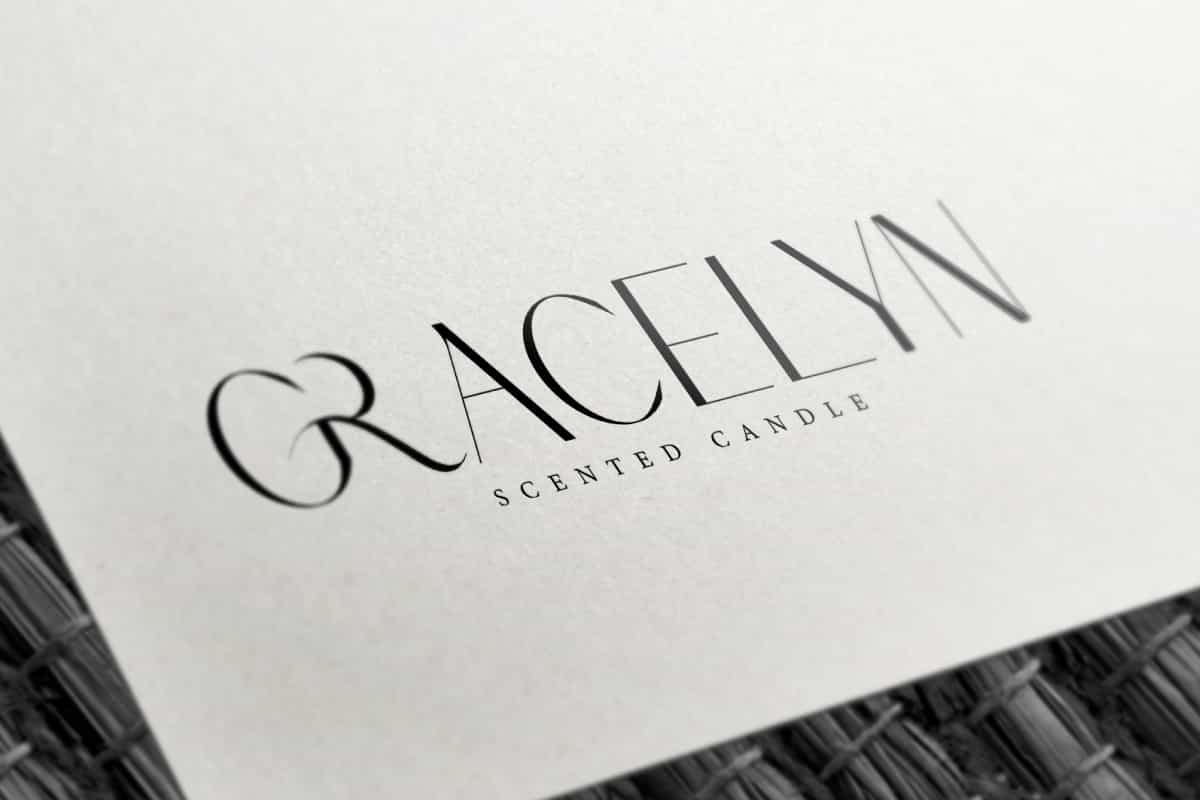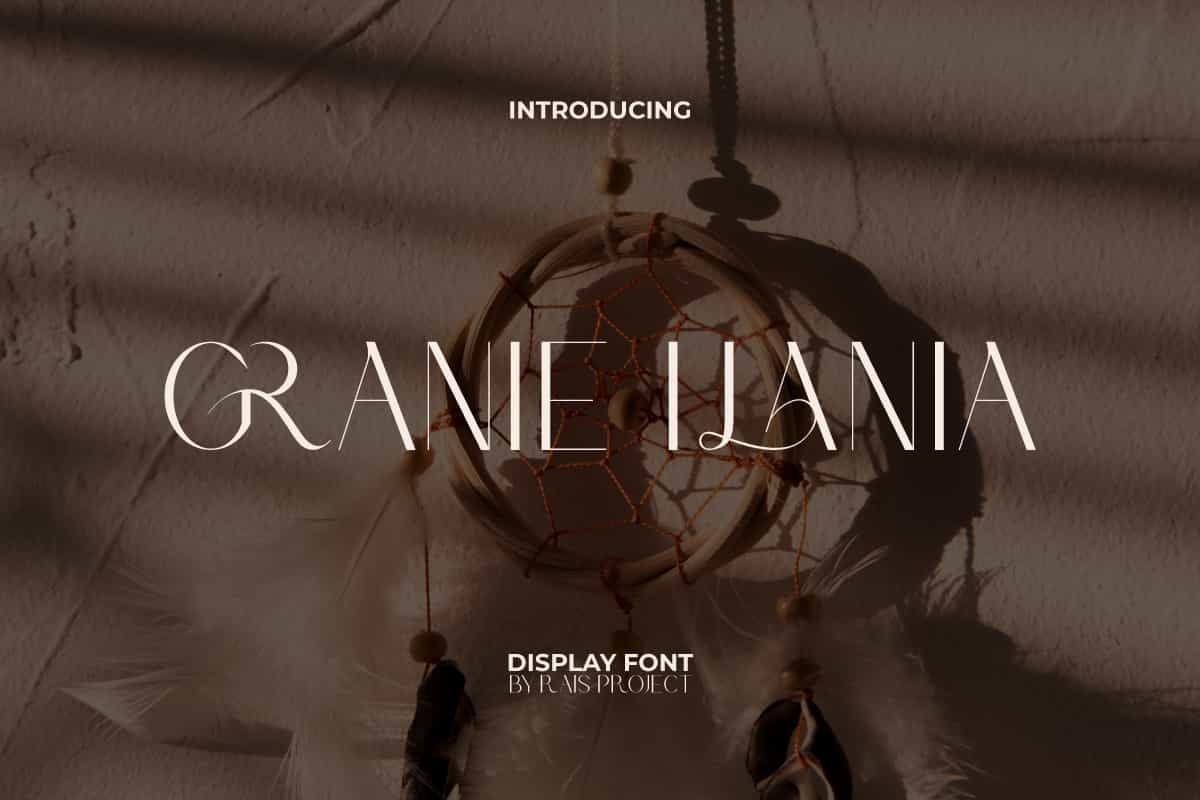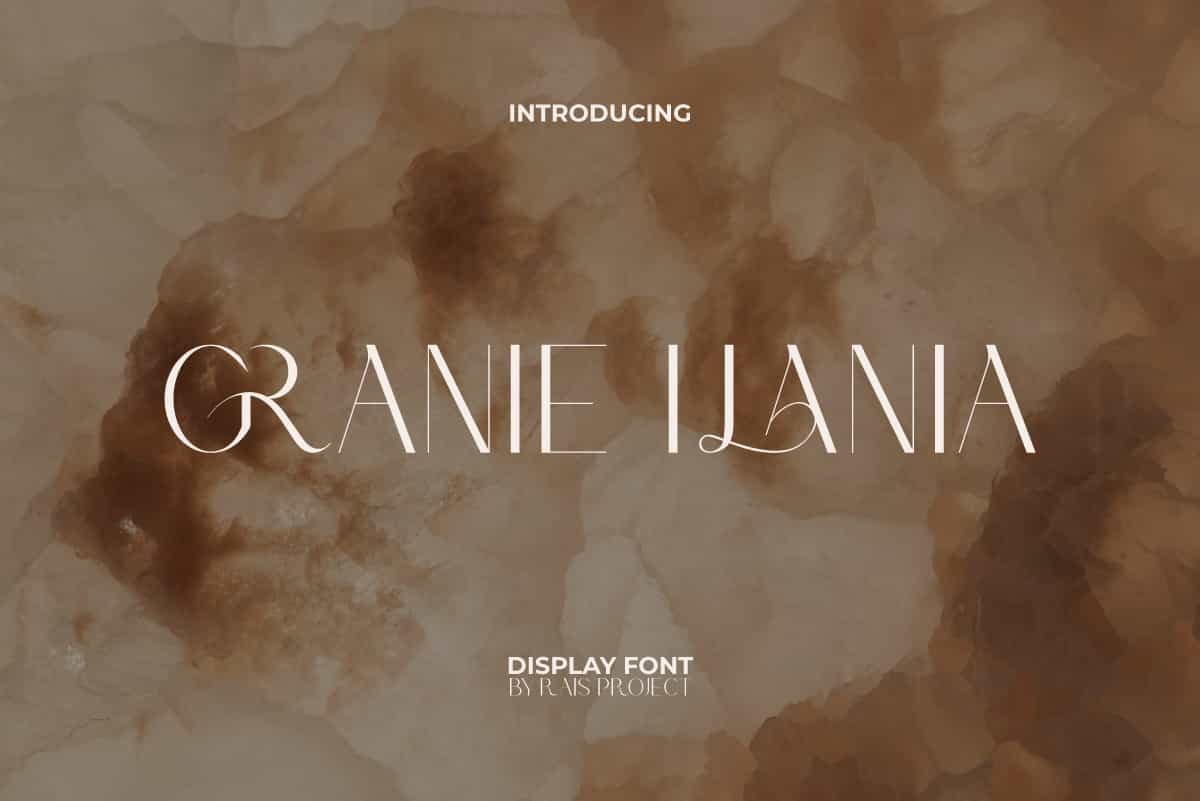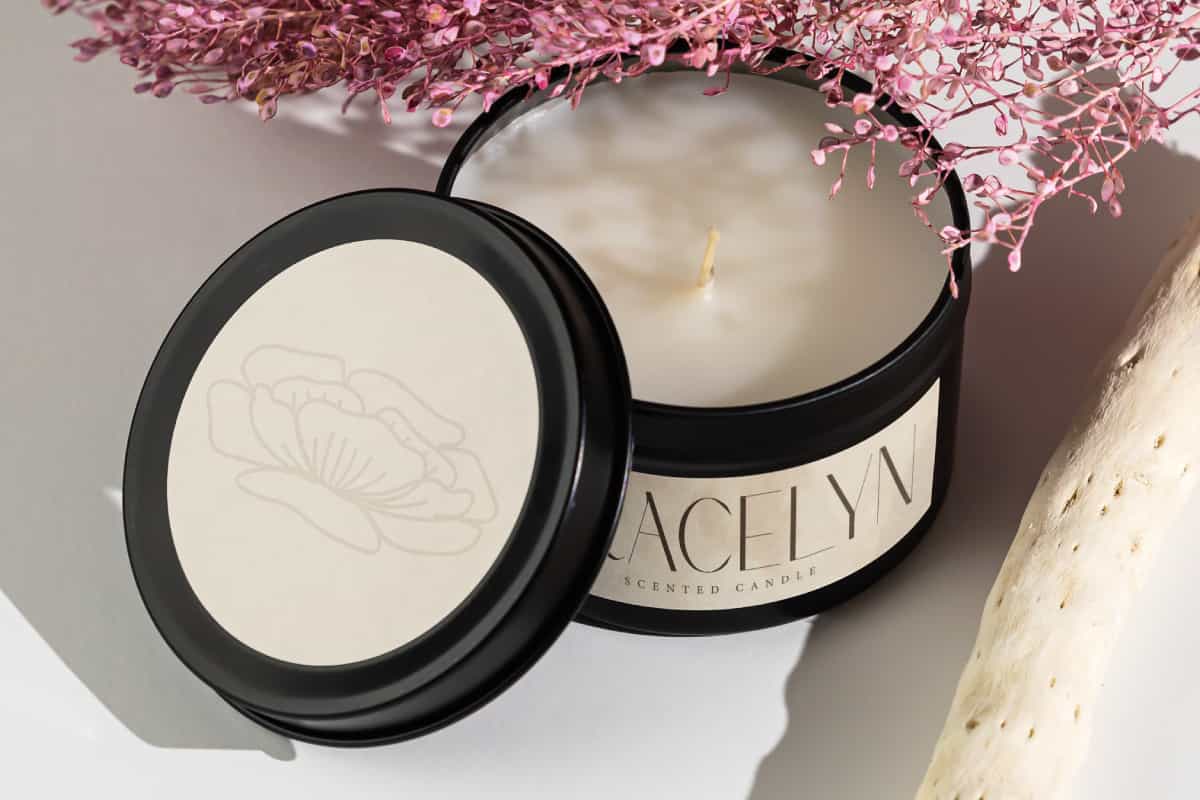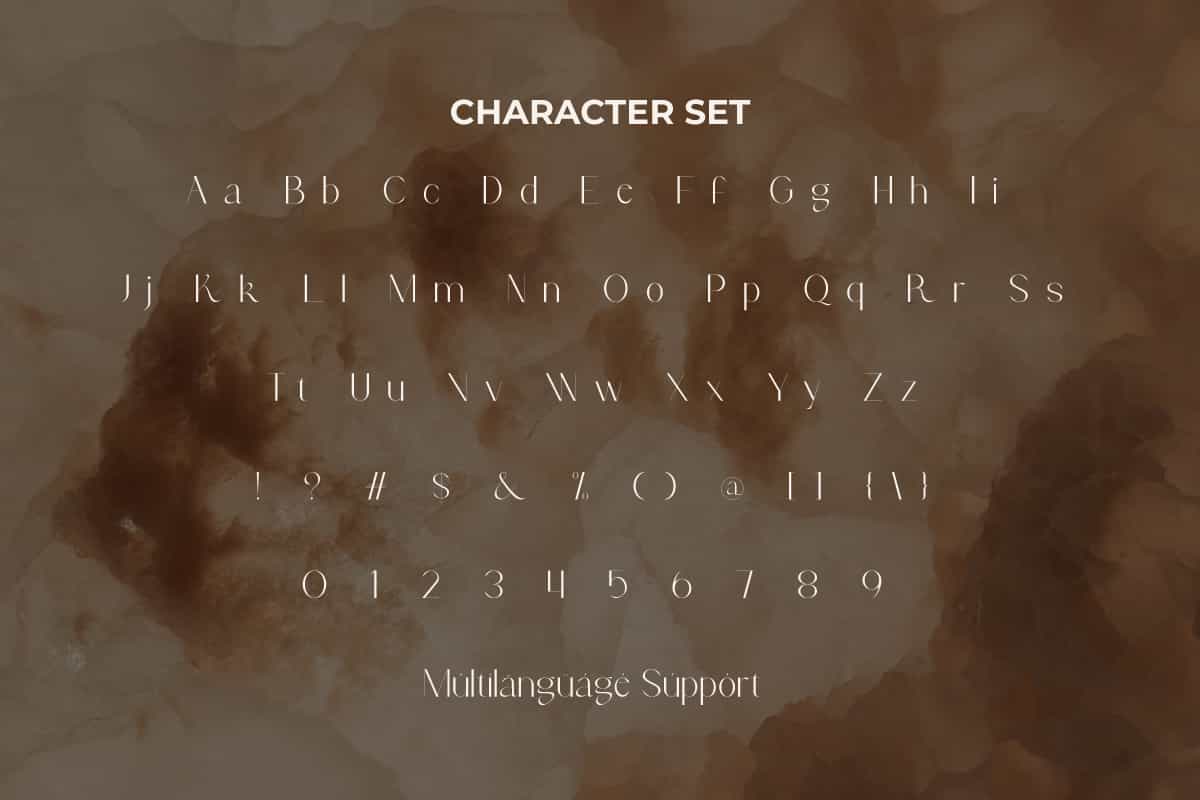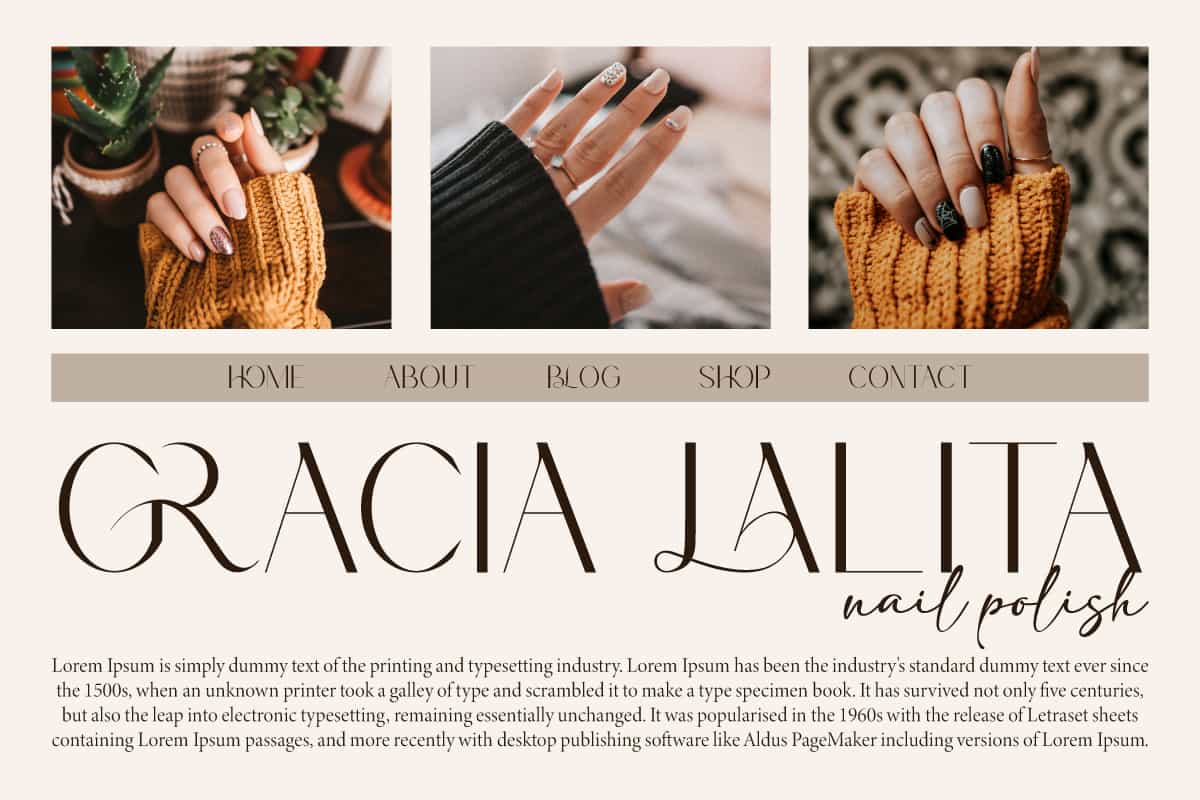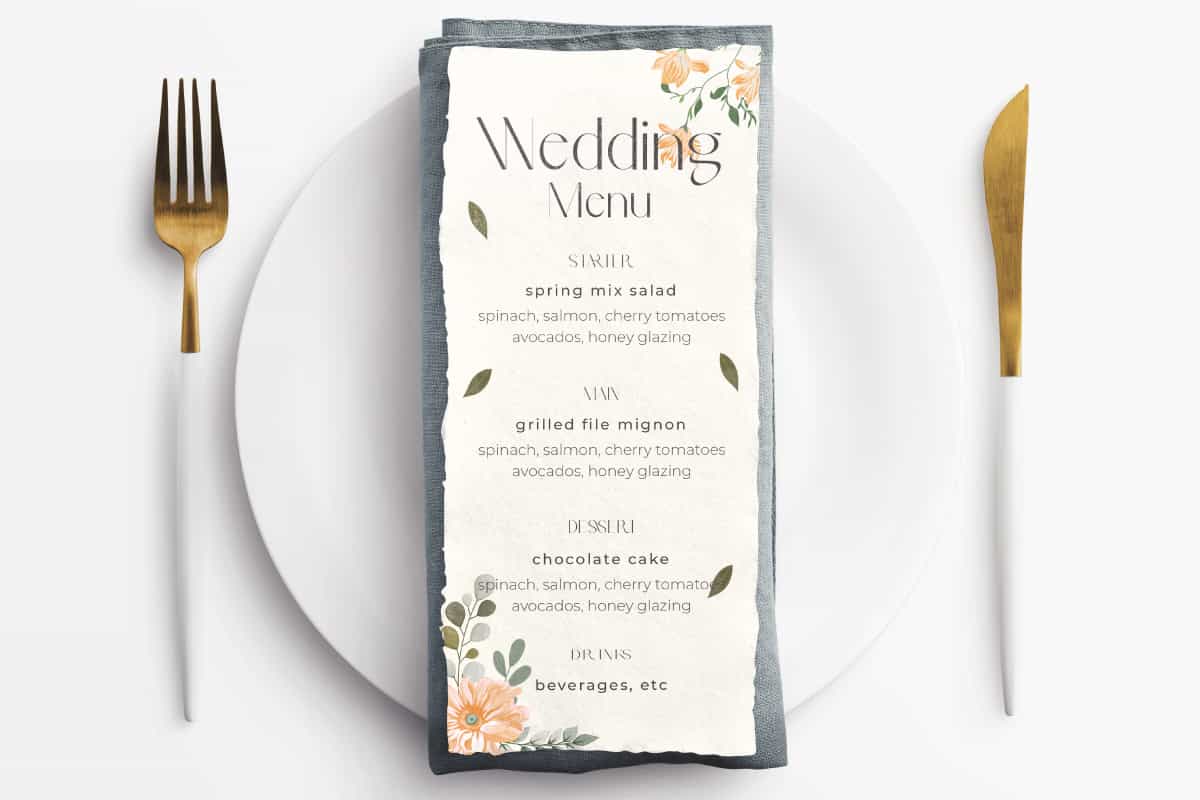
Granie Ilania Font
Granie Ilania Font is a modern sans serif font that can make your designs look classy!
Granie Ilania Font is a beautiful sans serif style font for various concepts, by RaisProject. Font with a clean feel can make a design look classy and can be paired with other font types. It will look good for invitation, signage, label, stationery, brand image, cover, custom design, poster, product packaging, quotes, web, and more!
Granie Ilania Font includes a full set of Uppercase and Lowercase Letters, Numerals, Punctuation, Symbol, and Ligature character. This flawless font will be suitable for various industries, such as fashion, accessories and jewelry, advertisement, event or wedding organizer, florist, homeware, perfume, photography, printing, publishing, real estate, etc.